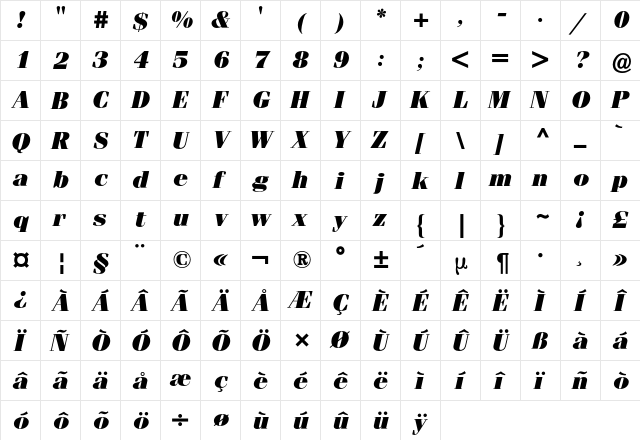
Fenice BQ Regular
Design Context for Fenice BQ Typeface
Fenice BQ is a composed and adaptable typeface that performs quietly and consistently across a wide range of design contexts.
Dating back to 1992, this typeface is available in OpenType (OTF) format.